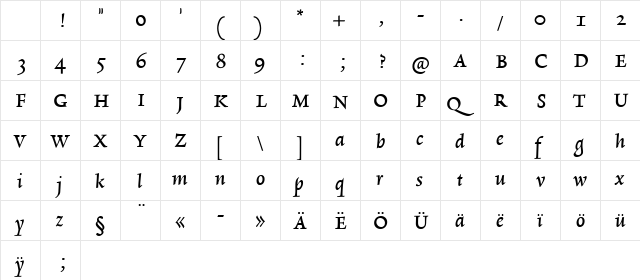
RialtoDF is a composed and adaptable typeface that performs quietly and consistently across a wide range of design contexts. The slanted form adds forward momentum and visual energy. Its bold stroke weight gives it real presence on the page.